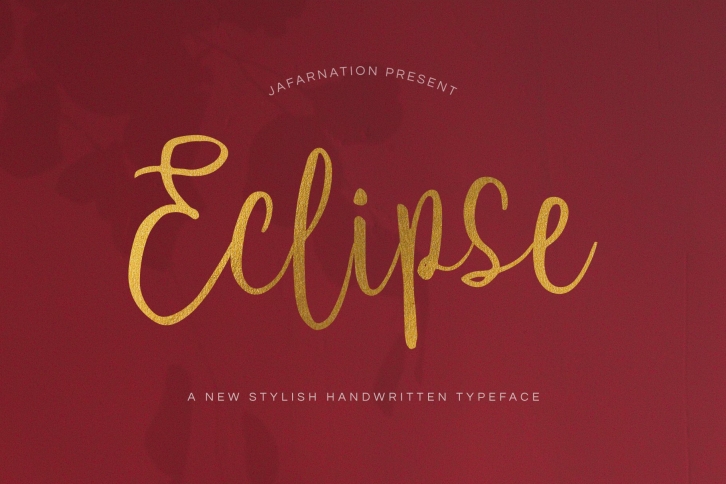
Eclipse Script FONT Download
Introducing the new Eclipse Script Font !!! For those of you who are needing a touch of elegant and modernity for your designs, this font was created for you!
Eclipse was built with OpenType features and includes ligatures, numbers, punctuation, and it also supports other languages. The font has smooth texture, so would be perfect for all types of printing techniques, you can do embroidery, laser cut, gold foil etc.